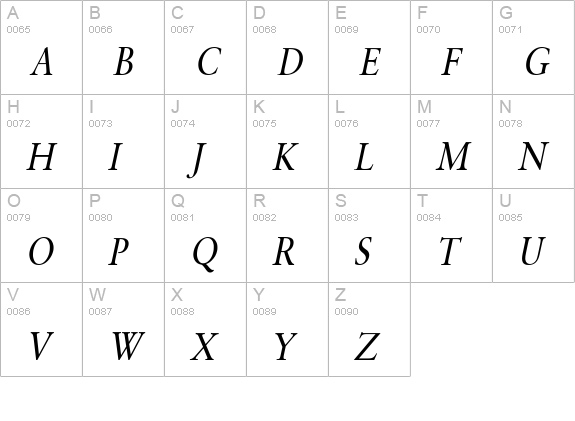
Garrick Condensed Italic Font Details
Garrick Condensed Italic is a distinctive, condensed-width, italic variant in the Garrick typeface family \xE2\x80\x94 well suited to design and typography projects.
The Garrick Condensed Italic font is a sleek and modern typeface that exudes sophistication and elegance. Its slanted design adds a touch of dynamism and flair to any text, making it perfect for conveying a sense of style and professionalism. This font is ideal for use in various design projects, such as branding, advertising, and editorial work. What's more, this exquisite font is available for free download at FontsMarket.com. With its unique blend of refinement and boldness, Garrick Condensed Italic is sure to make a statement and elevate the visual appeal of any creative endeavor. Enhance your designs with this versatile and eye-catching font today!